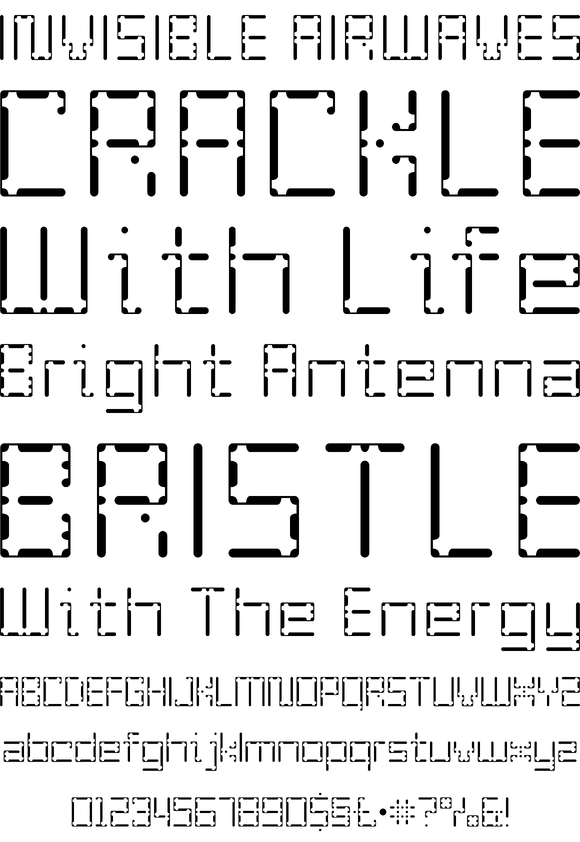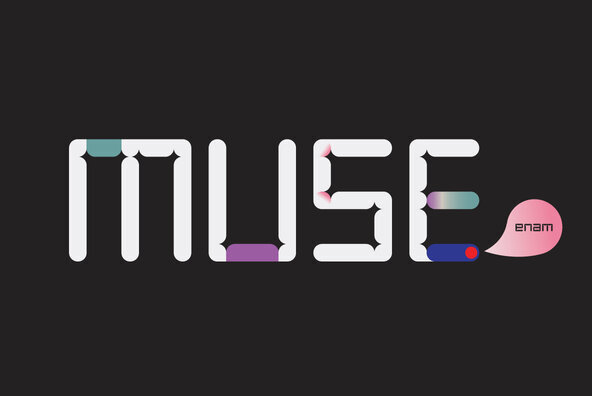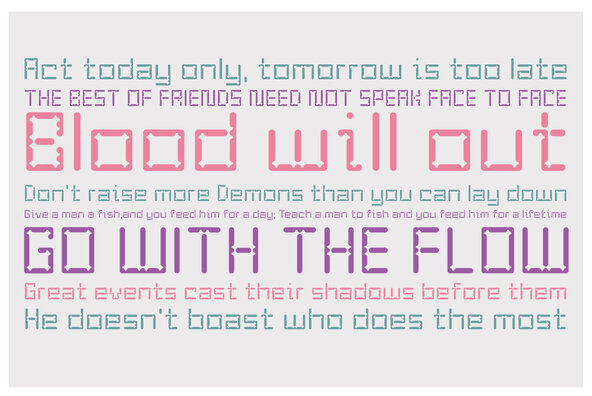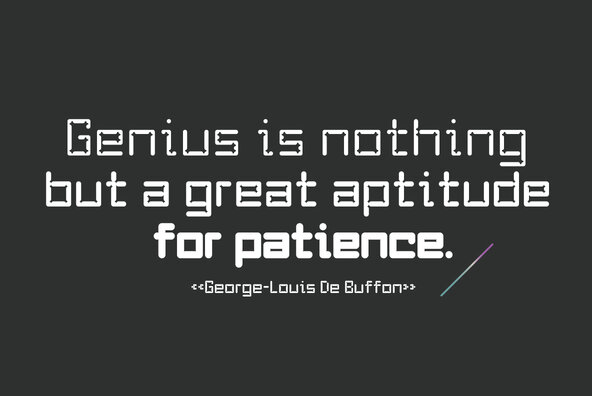
YWFT Enam
YWFT Enam's letterforms were originally created for a branding job, then developed as a font, and finally converted to Opentype format in 2010. Some similarity to past work by Wim Crouwel is evident, which comes as no surprise, given our admiration for Crouwel. Each weight in YWFT Enam changes the style dramatically, making for strikingly different possibilities. YWFT Enam is an interesting typeface design that has no specific relation to any time/design period. When you need something unique and stylish, opt for YWFT Enam. Designed exclusively by Michael Cina and YouWorkForThem.